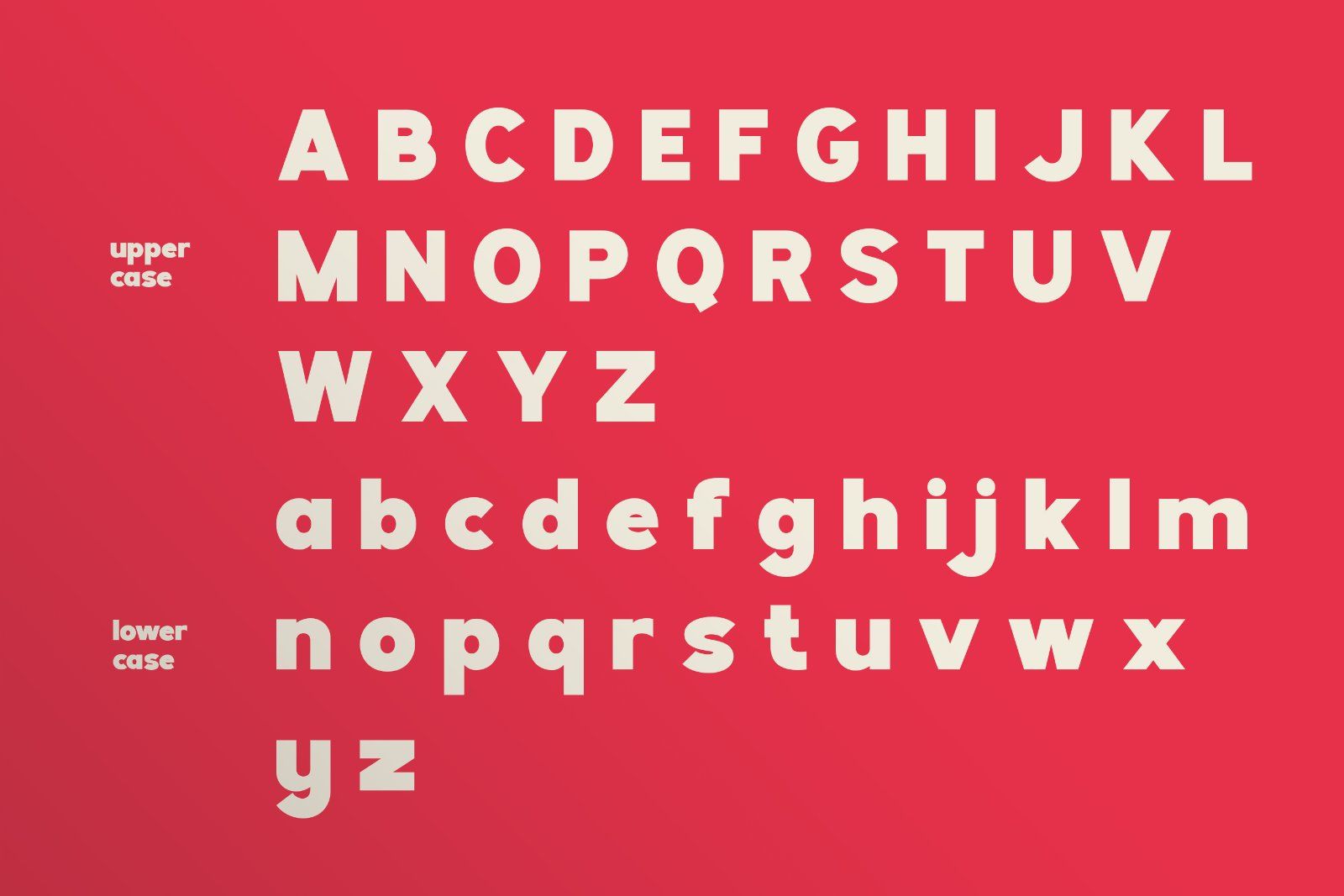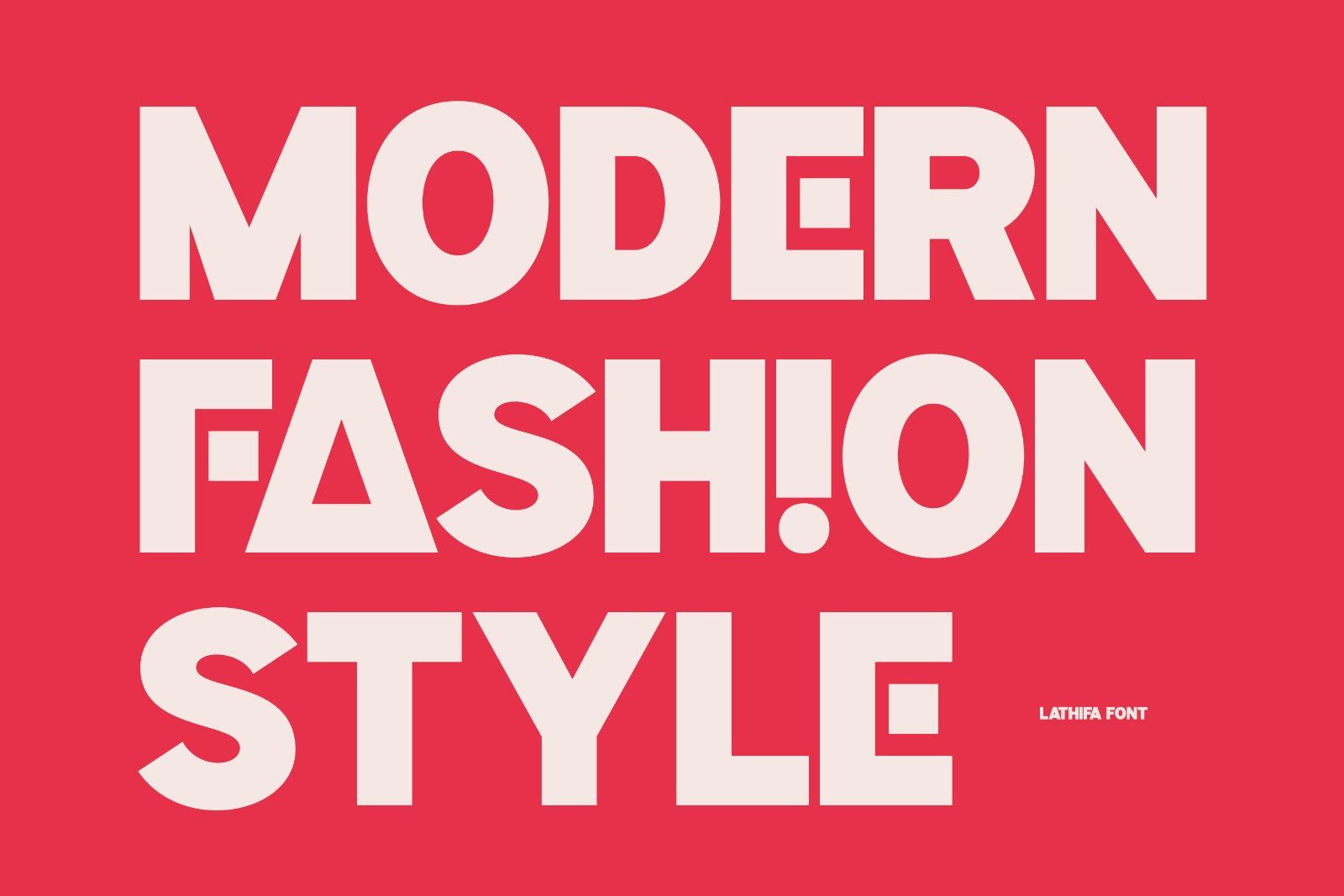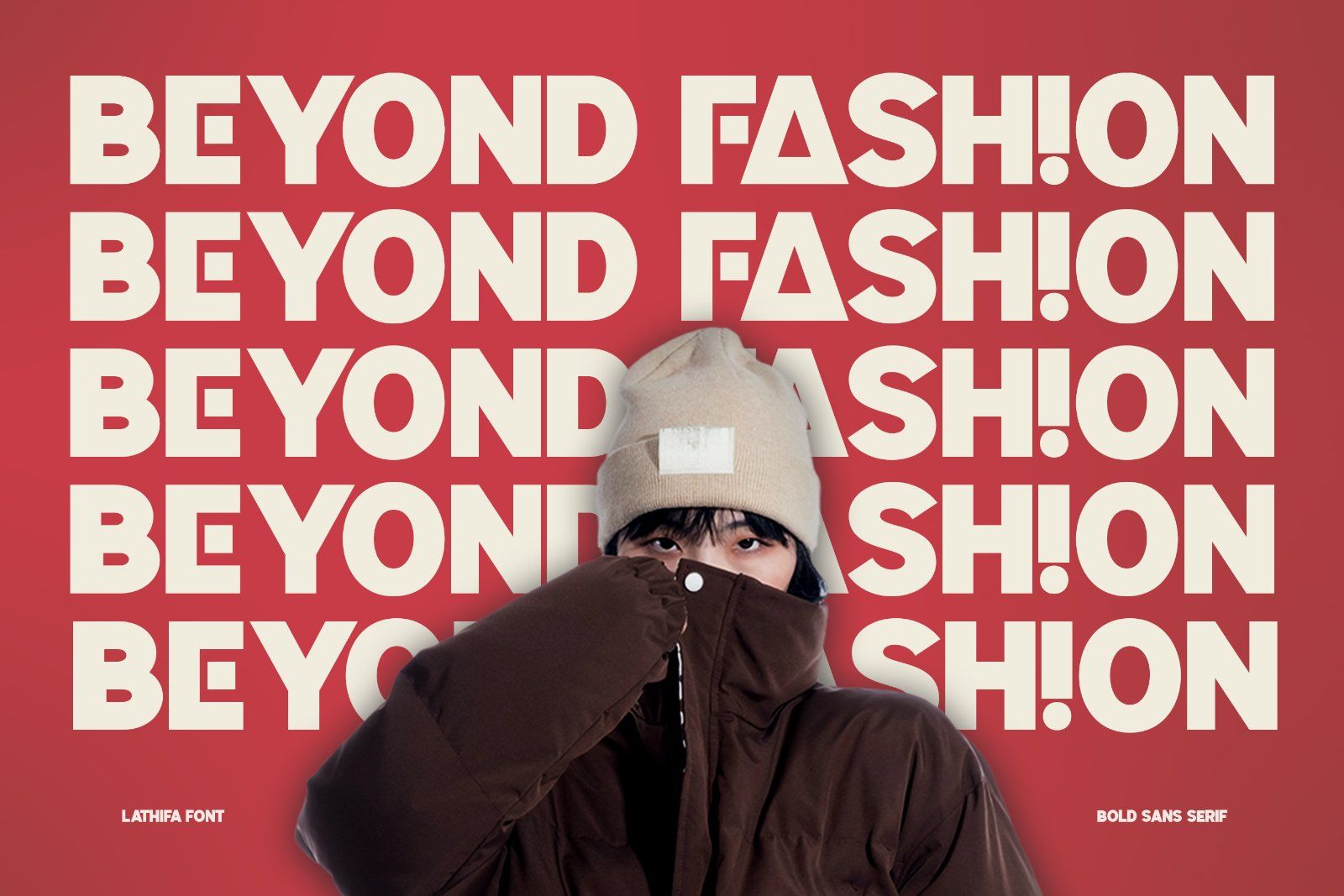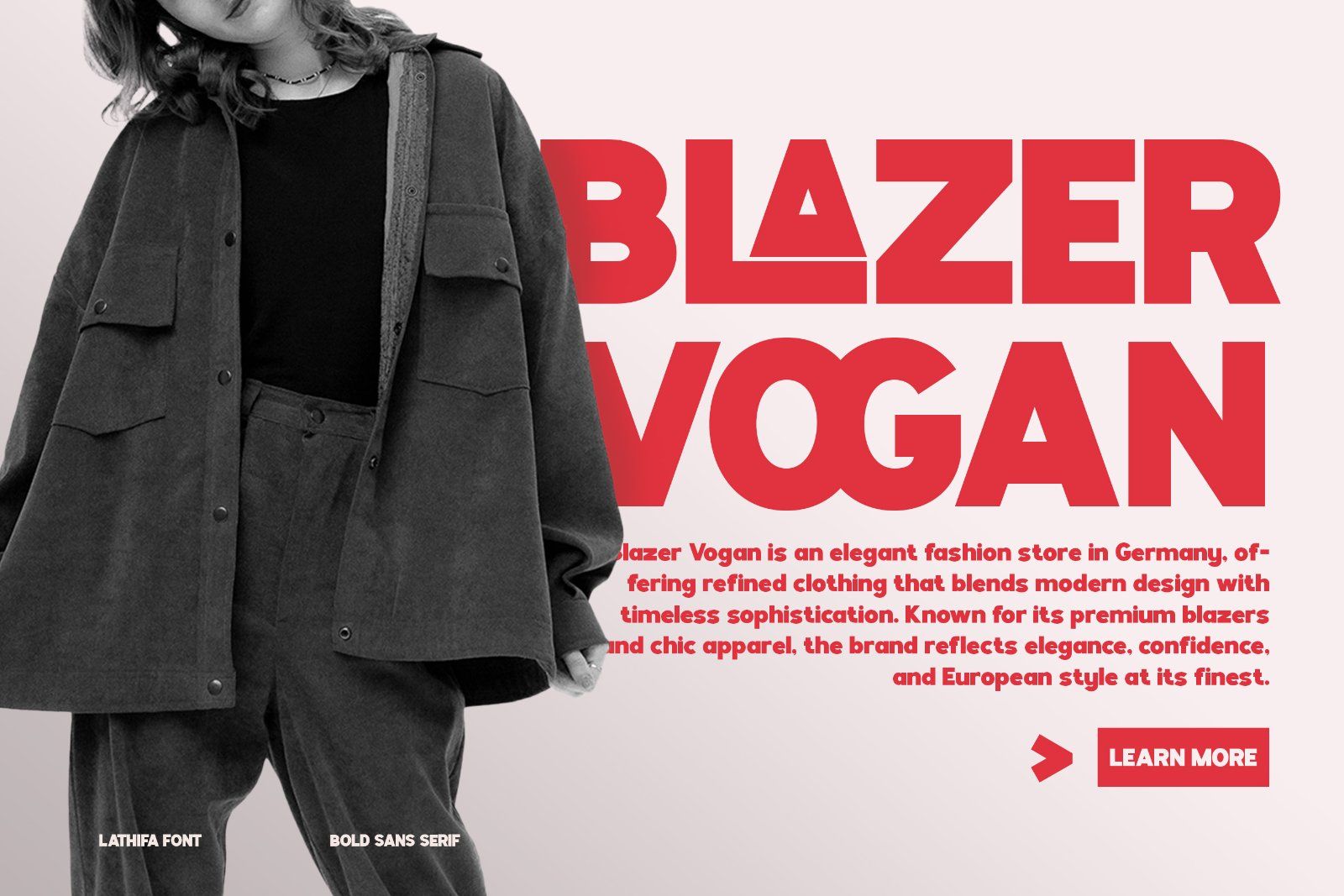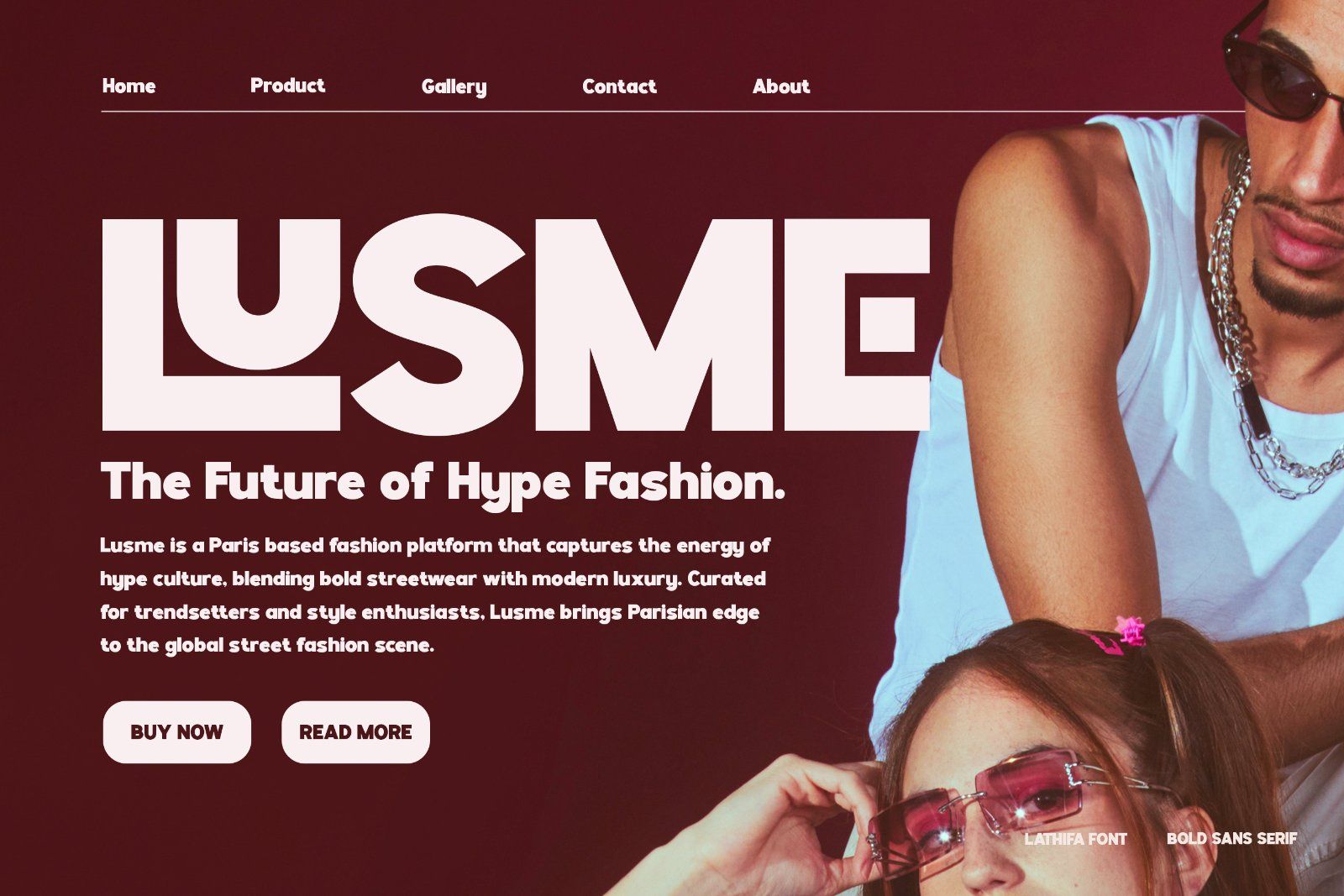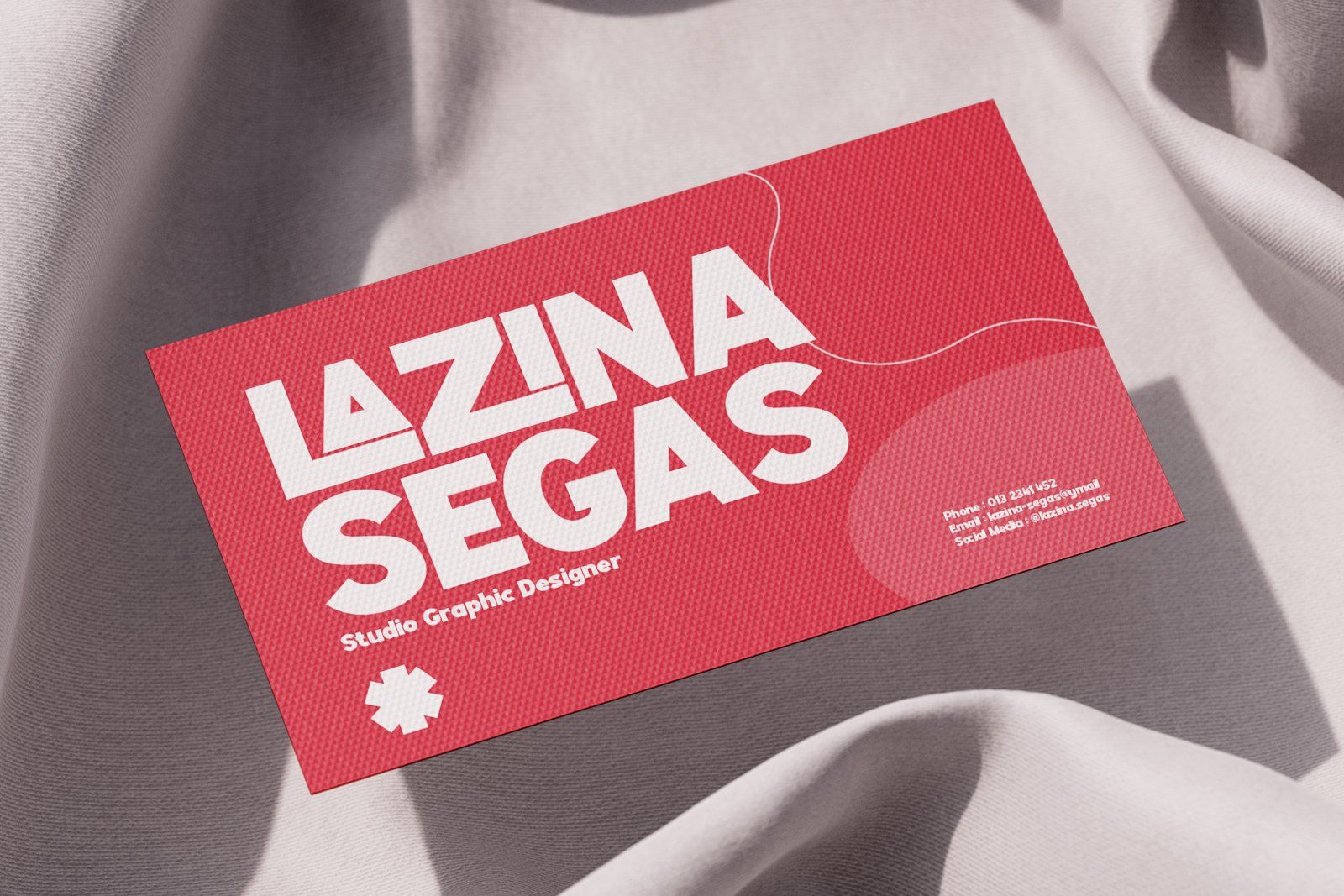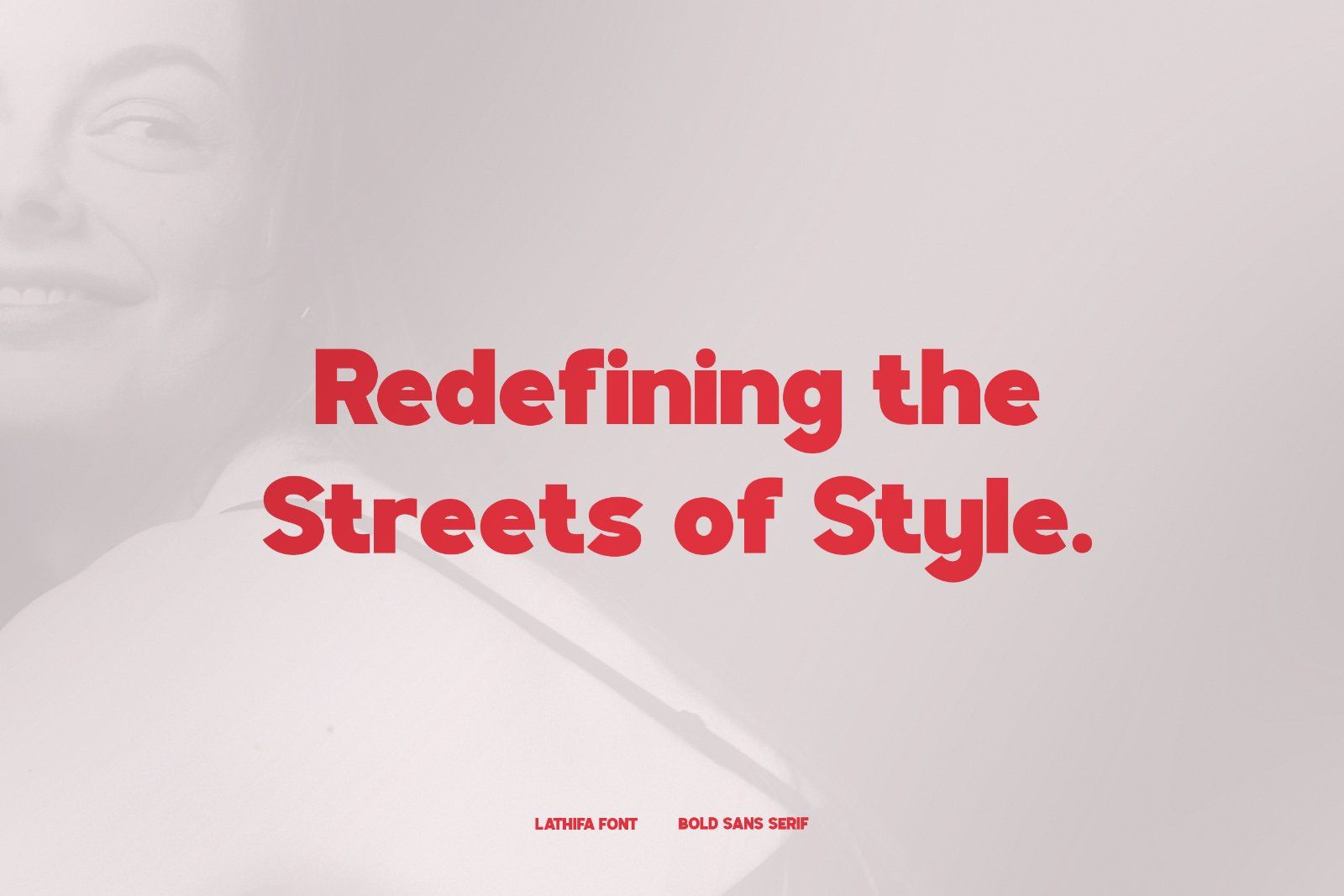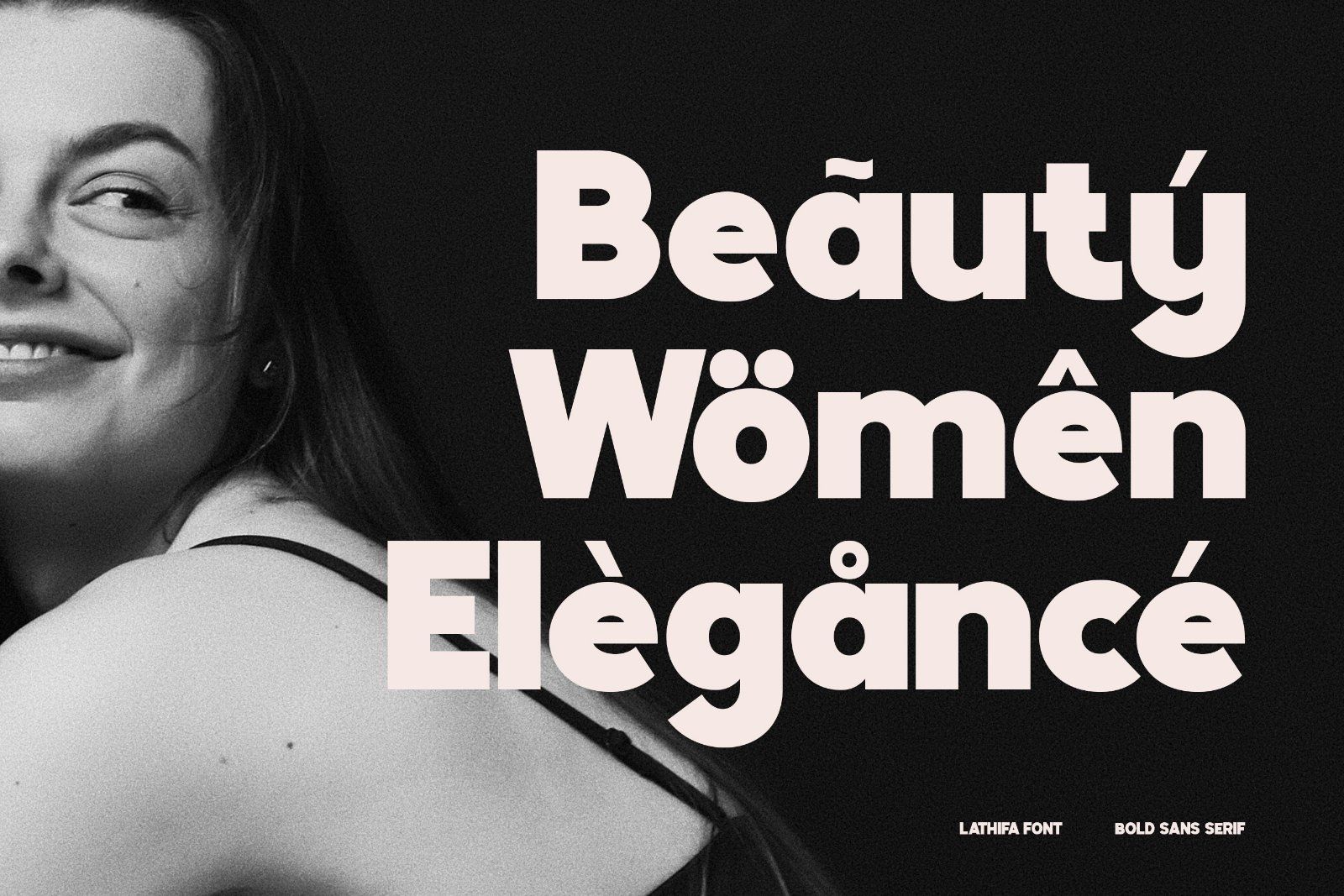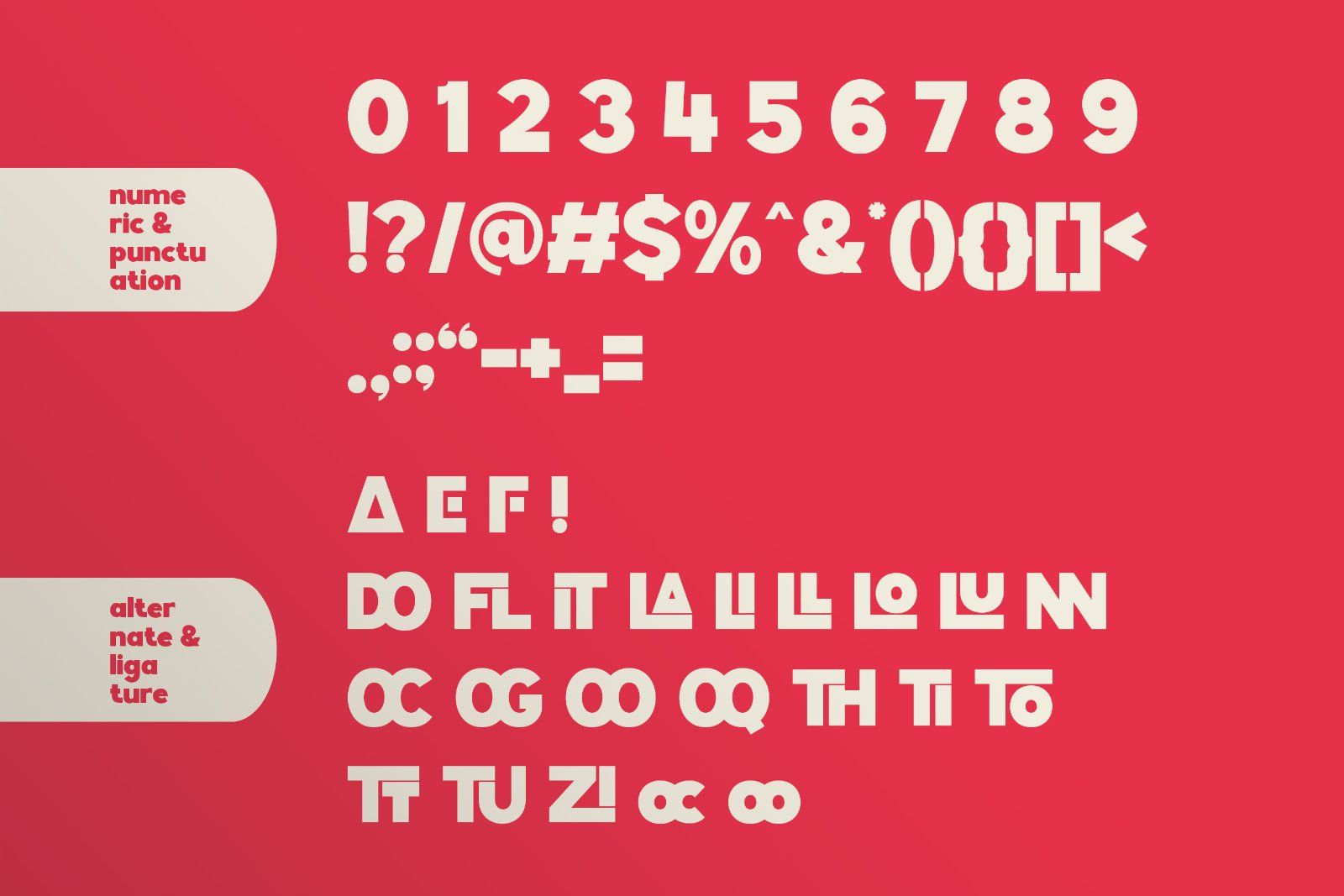
Lathifa is a modern bold sans serif font designed with a strong geometric touch and contemporary style. Its sharp edges, clean lines, and striking alternates make it perfect for projects that demand attention and confidence. With its powerful appearance and versatile ligatures, Lathifa shines in logos, branding, posters, packaging, and editorial designs. Whether you’re crafting bold headlines or stylish layouts, Lathifa delivers a modern and impactful statement every time.
• Uppercase alphabet A-Z
• Lowercase alphabet a-z
• Numbers 0-9
• Some punctuation
• Some Alternates and Ligatures